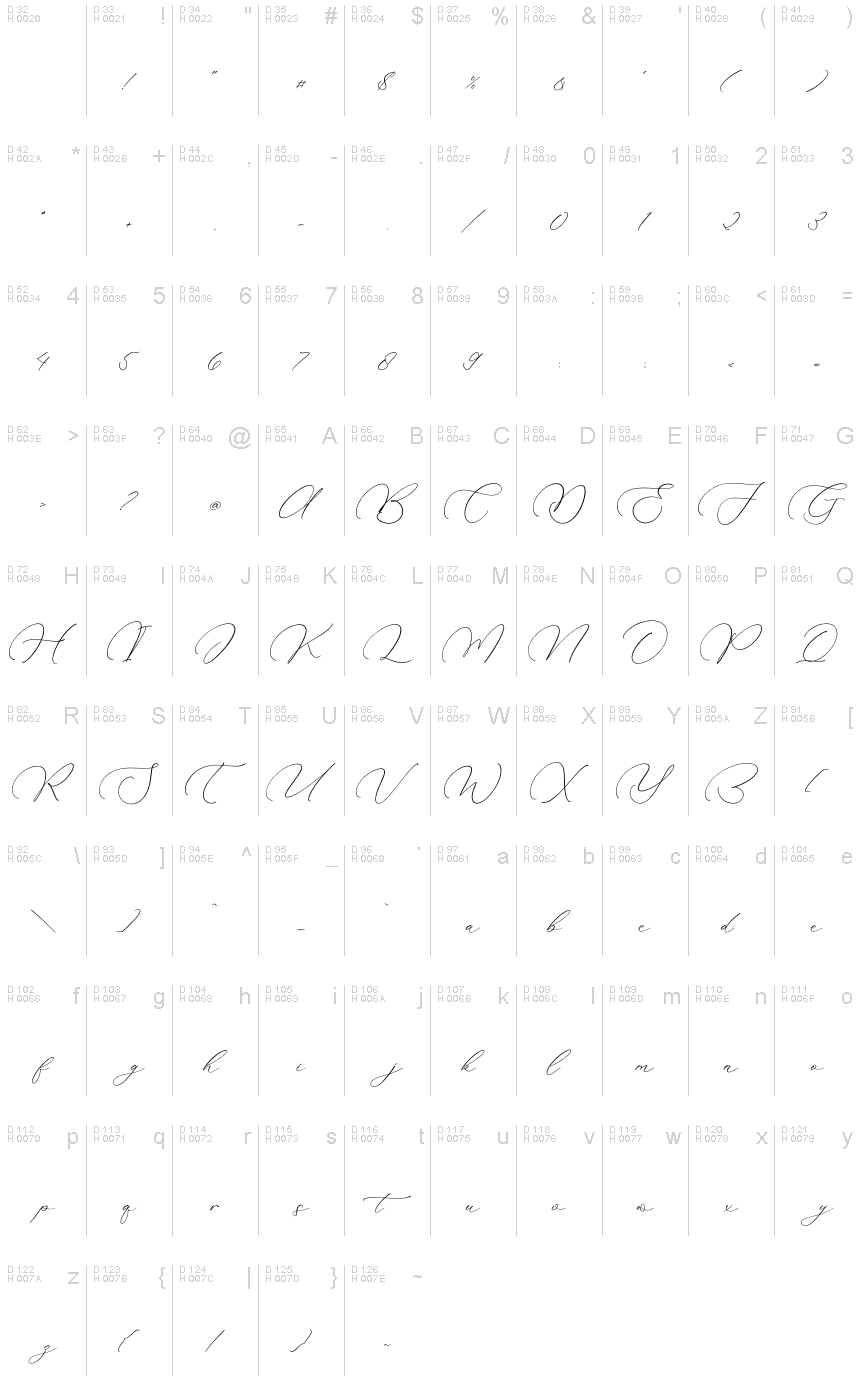
Madyntha Geradine
Madyntha Geradine, a captivating handwritten font created by Storytype Studio, exudes a captivating blend of elegance and effortless charm. The fluid, interconnected strokes and subtle variations in thickness lend an organic, personal touch, evoking a sense of warmth and authenticity. This font's versatility shines through its ability to seamlessly transition from formal to casual settings, making it a versatile choice for a wide range of design projects.
Madyntha Geradine's distinct personality lends itself beautifully to thoughtful typography, from eye-catching headlines and impactful packaging designs to heartfelt stationery and personal correspondence. Its natural flow and expressive character make it an ideal selection for branding initiatives, social media content, and creative editorial pieces that aim to forge a genuine connection with the audience.